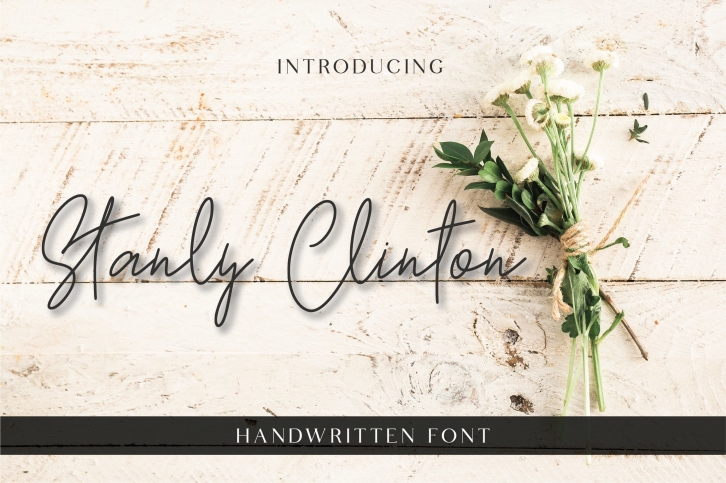
Stanly Clinton is a chic, elegant, and cozy handwritten font. It has beautiful and eye catching characters. It is suitable for wedding invitation, wedding decoration, greeting card, merchandise design, poster, music, movie, magazine, book, YouTube, Instagram, website, or any of your creative design projects.